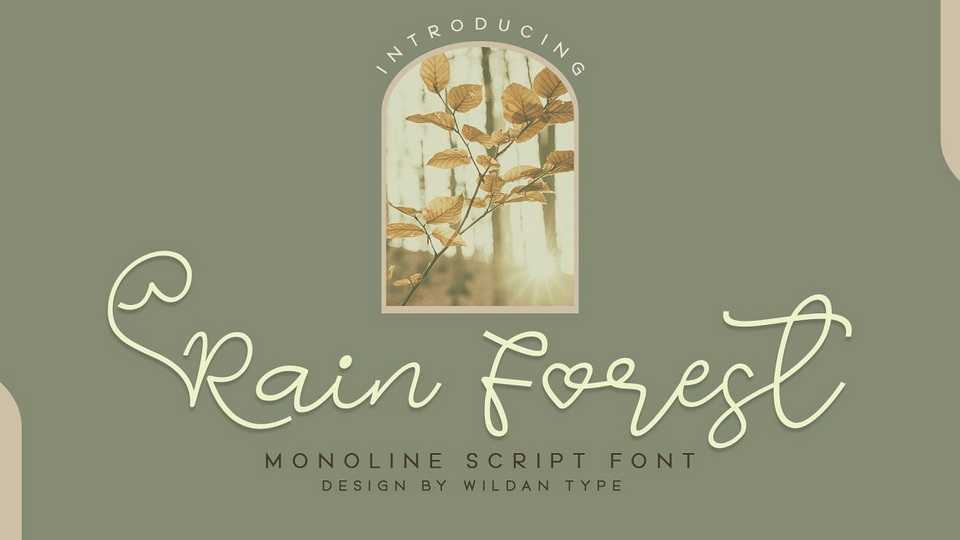
Download Rain Forest font, a versatile handwritten script for any typography. Rain Forest font is designed to be combine perfectly and allow you to create stunning hand-lettering quickly and easily.
Designer: Wildan Type